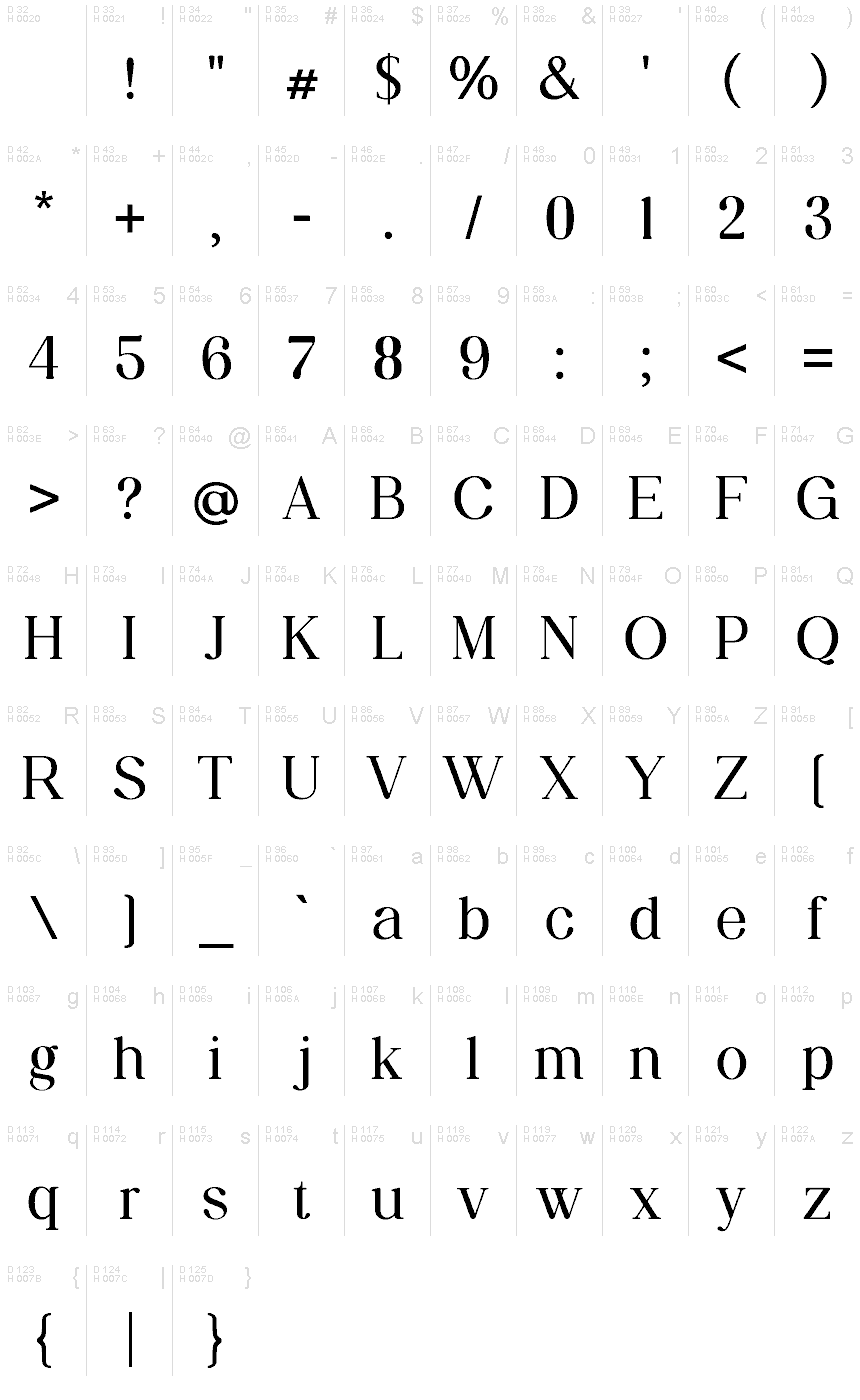
Forestyland Regular
Forestyland font by UI Creative is a classic serif typeface with traditional features that make it elegant in its own way. The effect of the serifs on the individual fonts is obvious as they make them look polished and sophisticated. Consistency between letters allows Forestyland to be equally useful for both small and large texts.